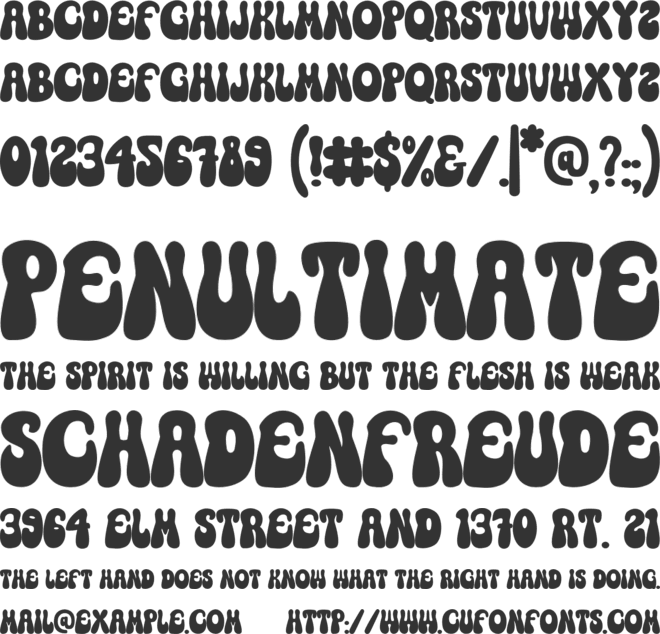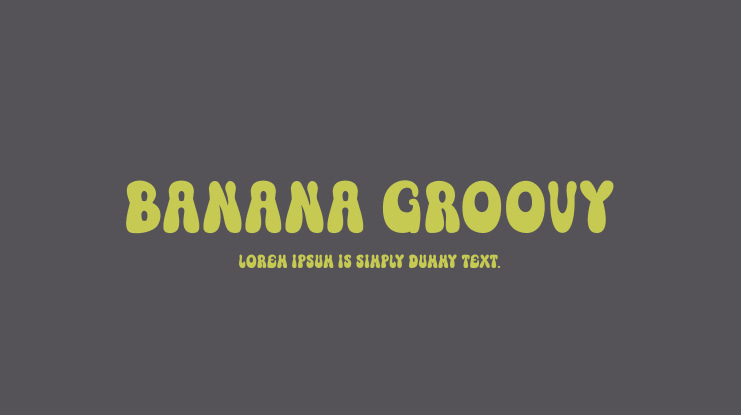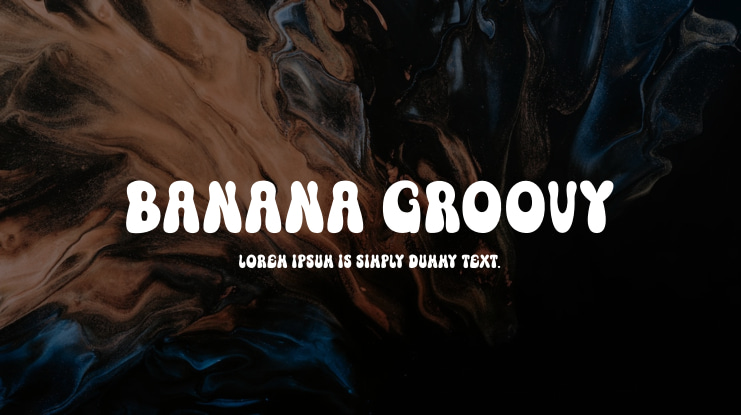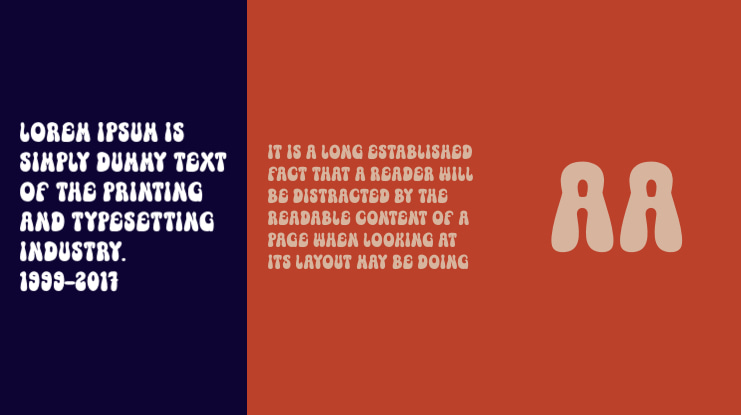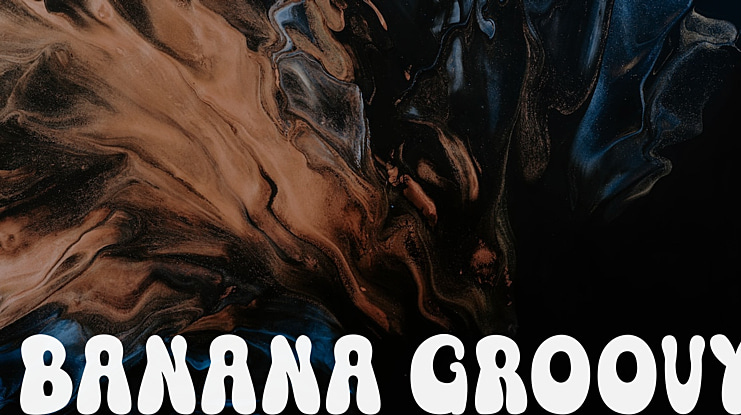
Banana Groovy Font
Banana Groovy is an adorable retro serif font, exuding a vintage, groovy, and playful vibe. It is specifically designed for the back-to-school theme, making it perfect for various design projects.
This font offers several alternate options for both uppercase and lowercase letters, allowing for greater flexibility and creativity in design.
With its cute and retro touch, Banana Groovy is the ideal font for designs that require a whimsical feel, such as back-to-school designs, kids' designs, birthday invitations, summer-themed designs, t-shirt designs, crafting projects, stickers, sublimation prints, and much more.